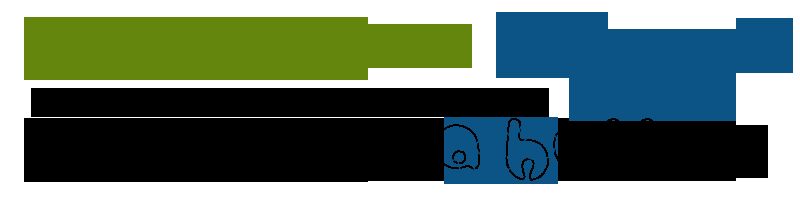
Bubbletea Hollow, designed by Andy Greer and Max Infeld of Xerographer.com, is a free outlined cartoon display font with soft, inflated shapes and generously open interiors. The uneven curves give every letter a cheerfully homemade wobble.
Children's brands and playful food businesses can use it for packaging, party posters, and cheerful shop signage. The rounded lettering can become part of an illustrated scene, echoing bubbles, sweets, clouds, or other simple shapes in activity books and digital graphics.